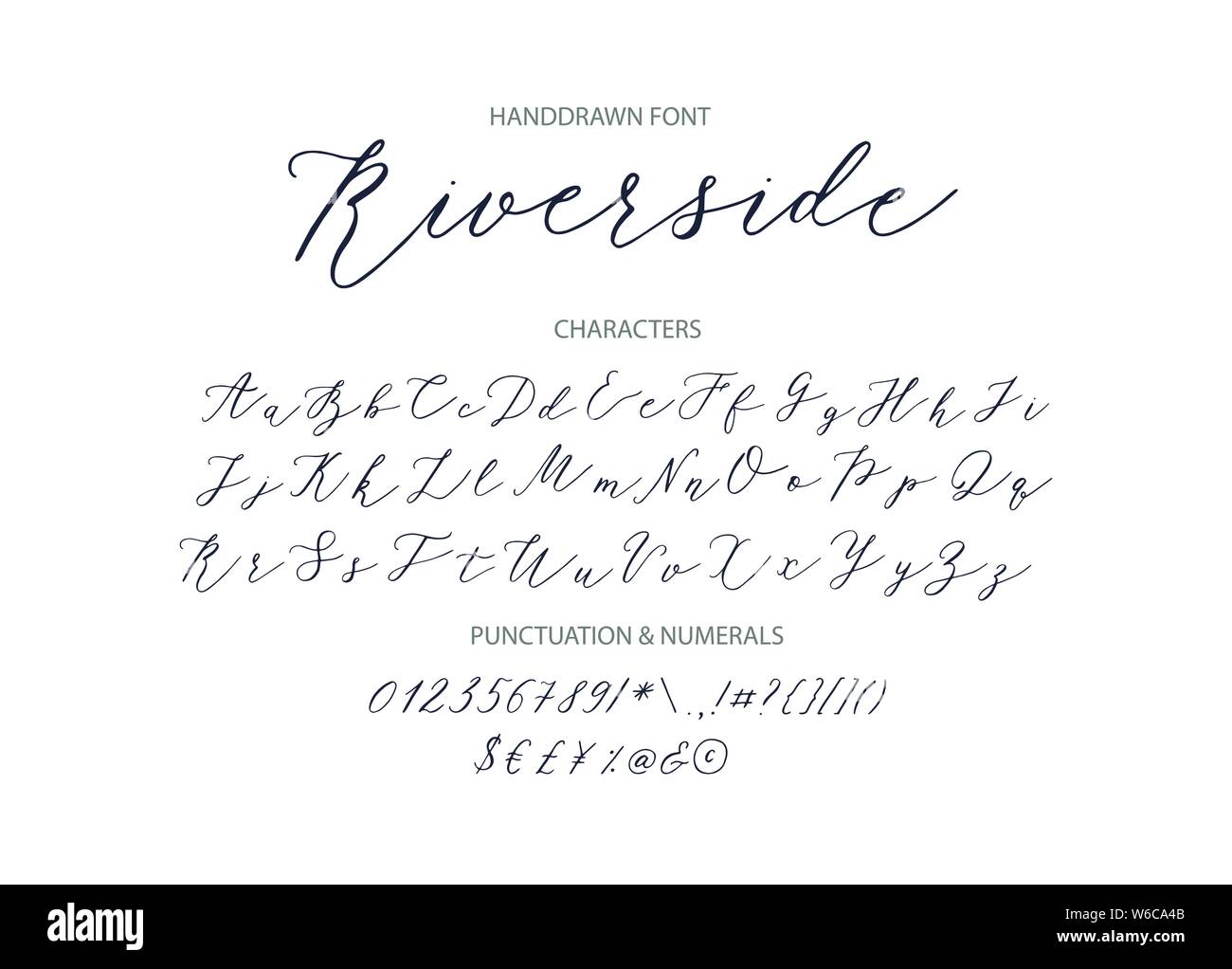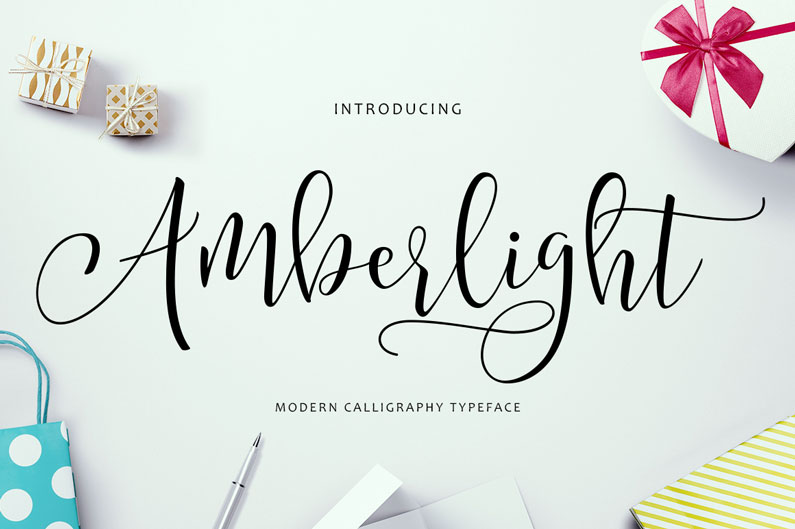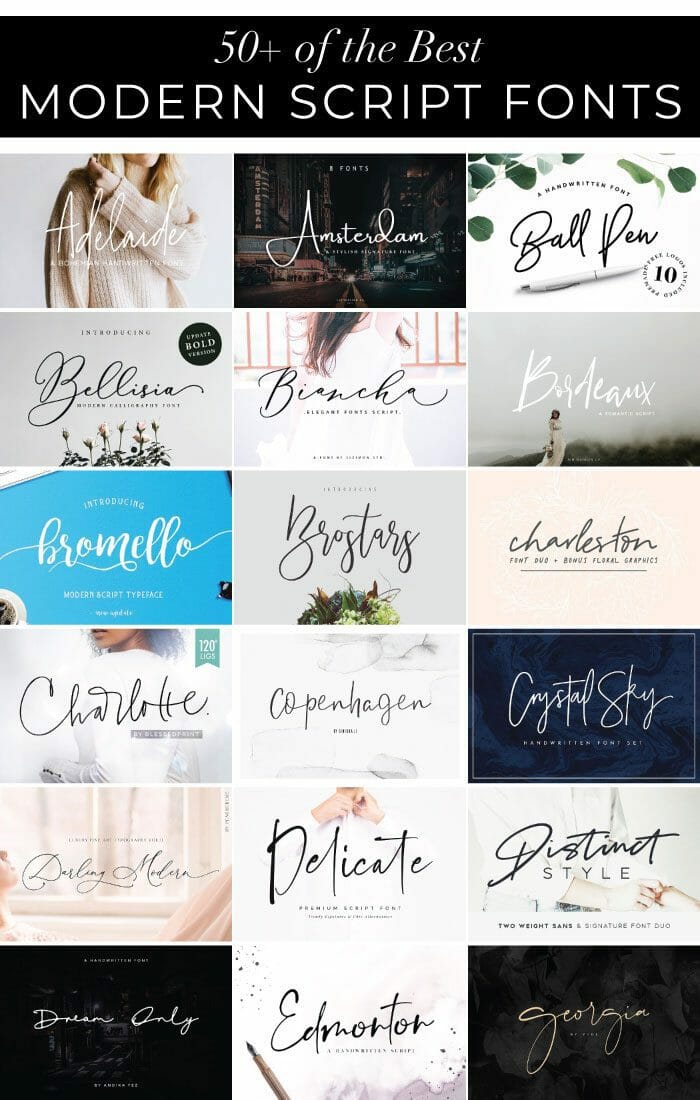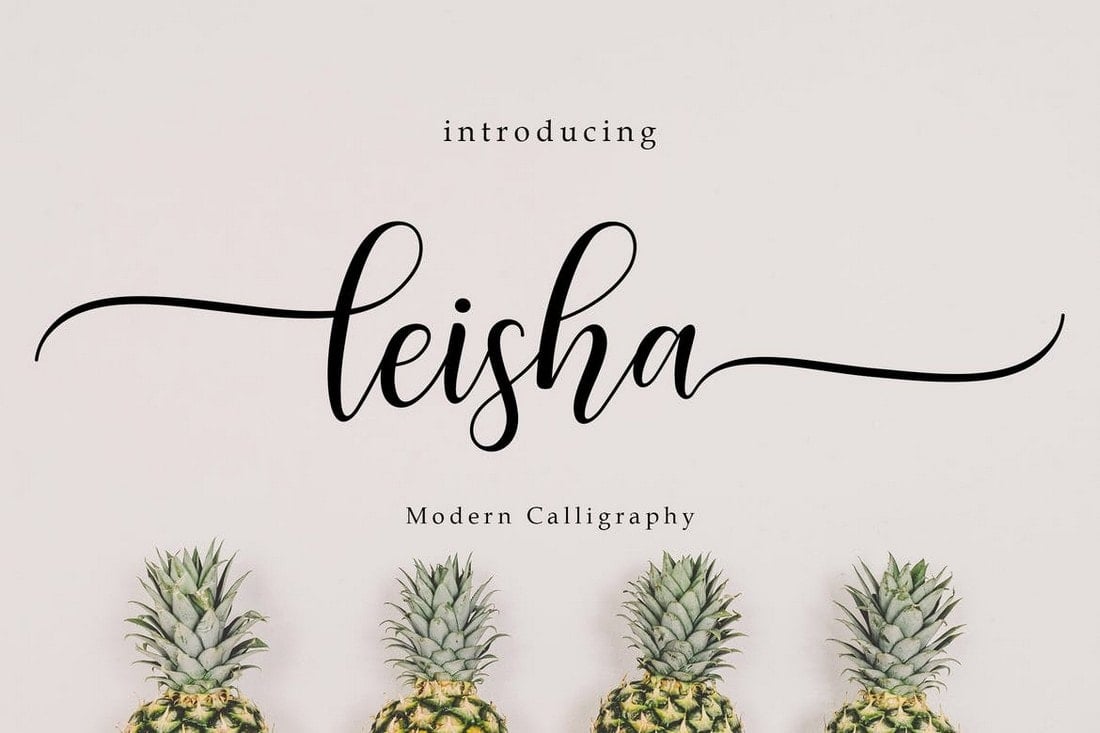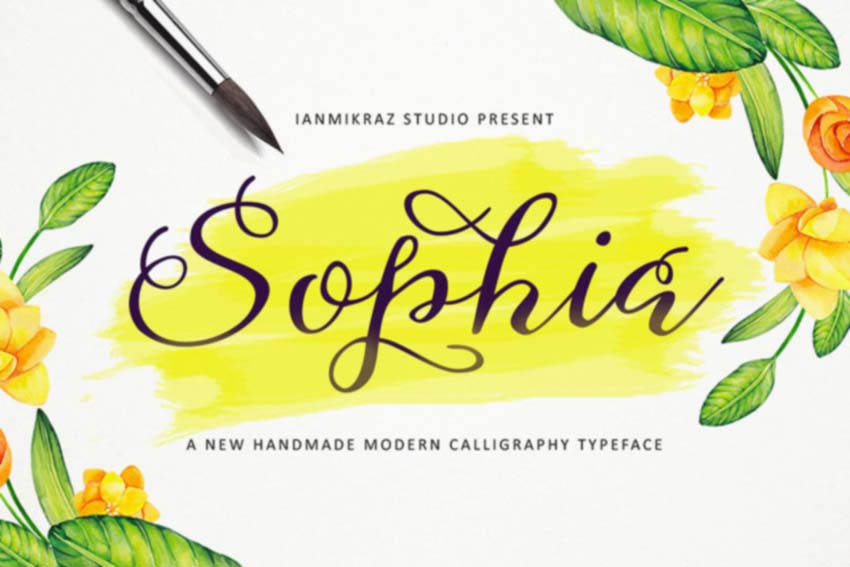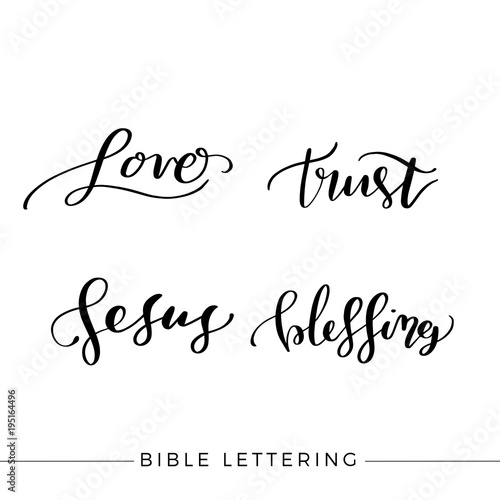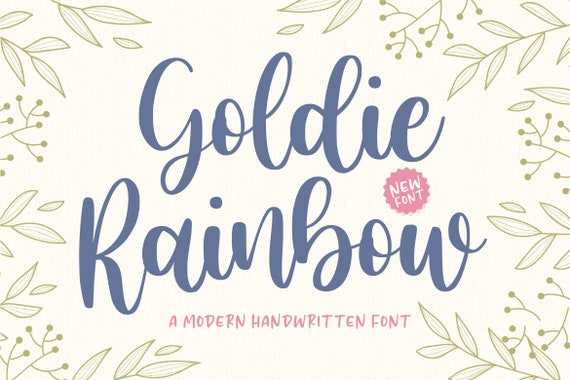
Modern Script fonts are the style that is popular during our current time period.
Calligraphy modern script fonts. You can see from scratches that give a realistic and modern style. You can use this font in your design product range like. Its perfect for any design project such as quotes wedding invitation clothing and apparel.
Modern Fonts Modern fonts are styles that are new to our present time and differ from the remote past. Modern calligraphy typefaces differ from traditional calligraphy in that they do not adhere to specific lettering rules. Font looks sweet and full of the best characters.
Font Niesha Modern Calligraphy Script Font come with 220 glyphs. Dellisa Font is beautiful and modern calligraphy script font for your next design work. Fire Ice Decorative Typewriter Stencil Army Retro Initials Grid Various.
Modern script and modern calligraphy styles are a huge departure from traditional calligraphy and cursive handwriting. The alternative characters were divided into several Open Type features such as Swash Stylistic Sets Stylistic Alternates Contextual Alternates. This style can end up looking very similar to hand-lettered fonts but the difference is that calligraphy is written and not drawn.
Peach Modern Calligraphy font was designed by handwriting and it has a modern and unique forms of calligraphy the writing style is very natural and multiple language support. Beatrices Modern Calligraphy Script Font with a calligraphy style So beautiful on invitation like greeting cards branding materials business cards quotes posters and more. The writing is readable but is usually extravagant and embellished with flourishes.
Chinese Jpn Arabic Mexican Roman Greek Russian Various. These newer scripts differ from traditional calligraphy and usually have more unstructured baselines and free-flowing flourishes. The alternative characters were divided into several Open Type features such as Stylistic Sets Stylistic Alternates Contextual Alternate SWASH and Ligature.
Fall in love with its completely different and timeless style and can use it to create wall designs logos wedding invitations stationery product.